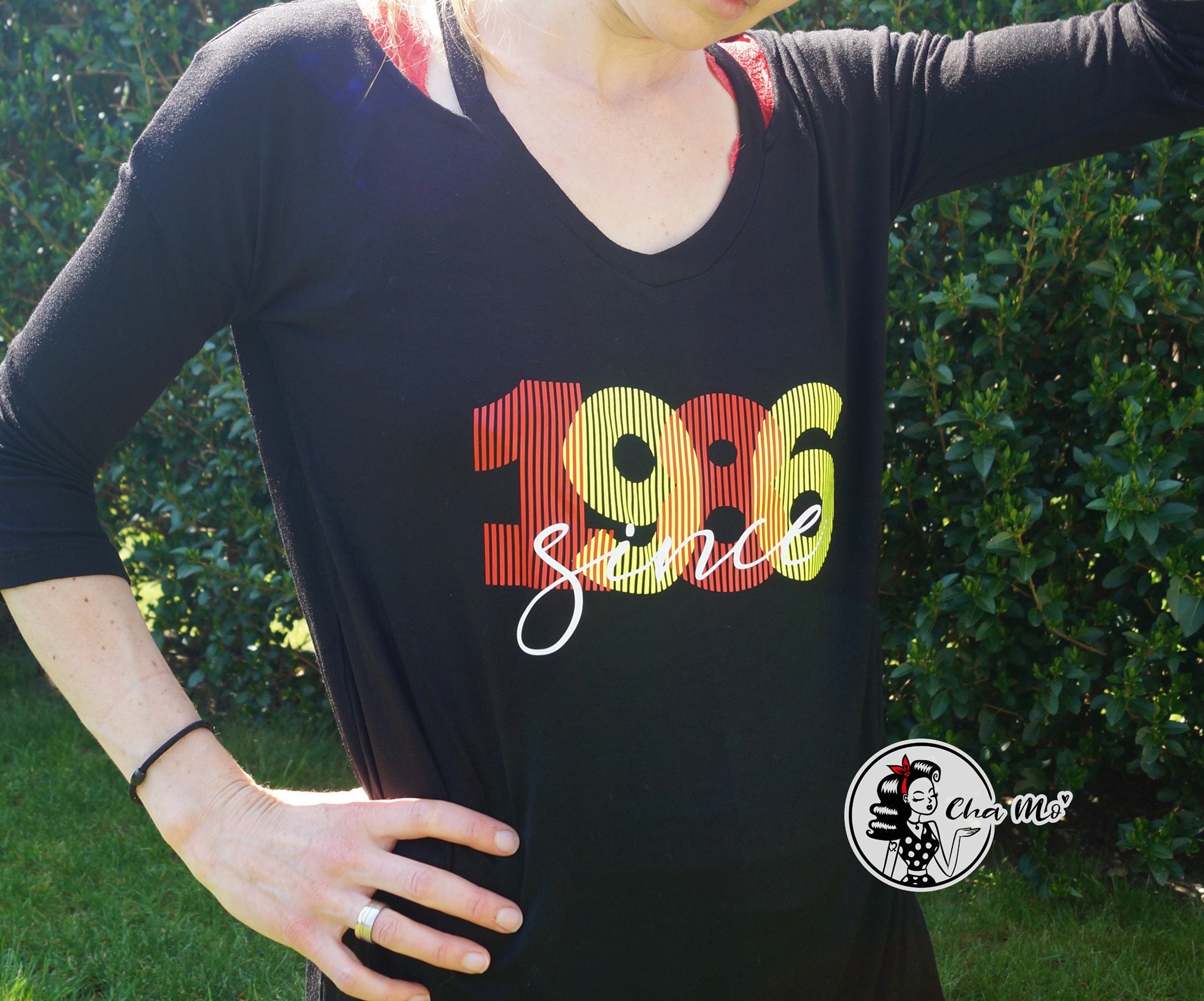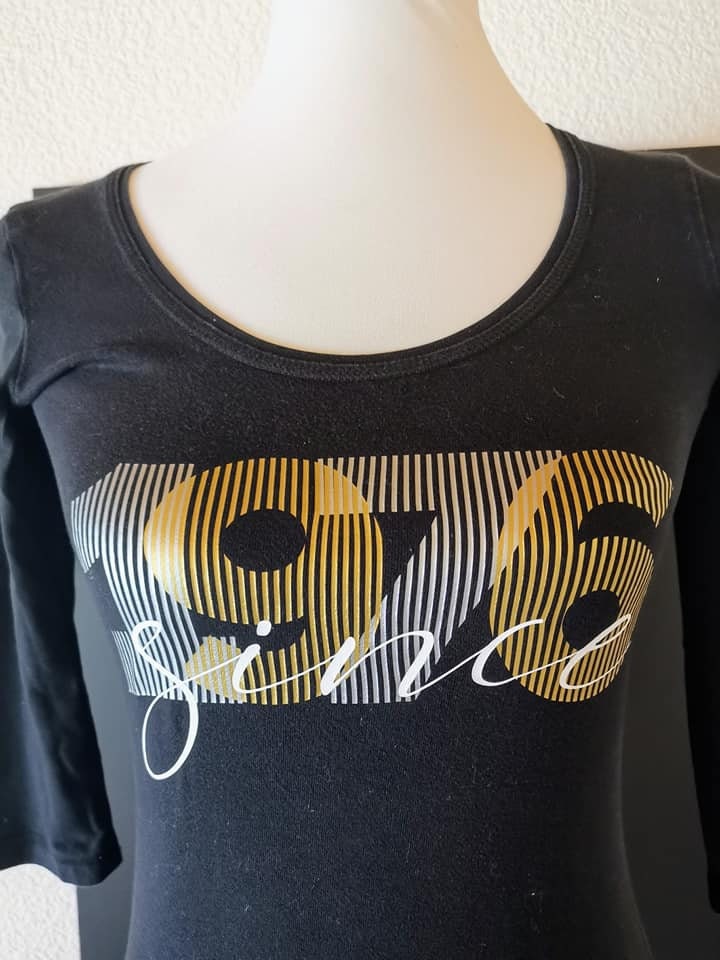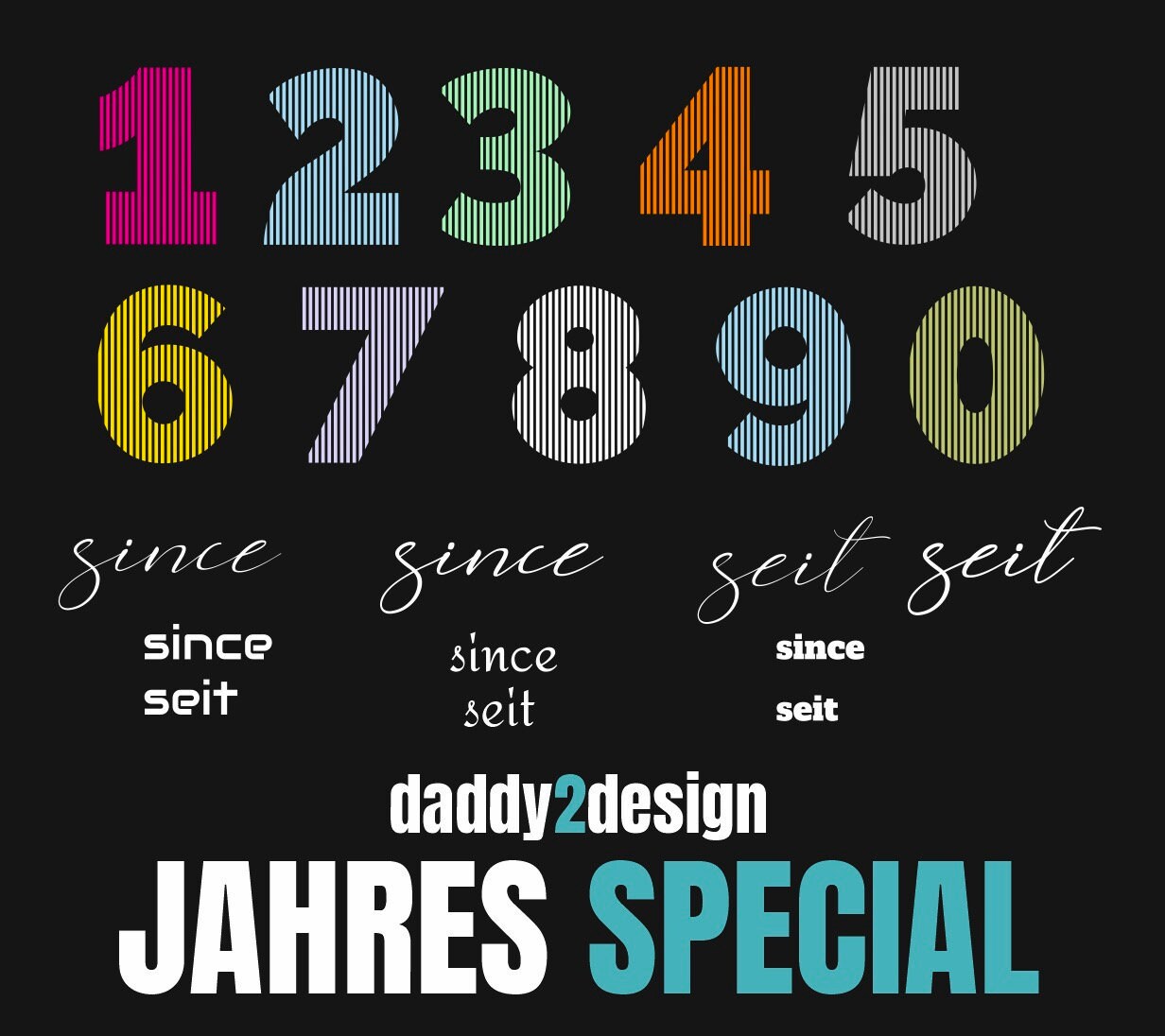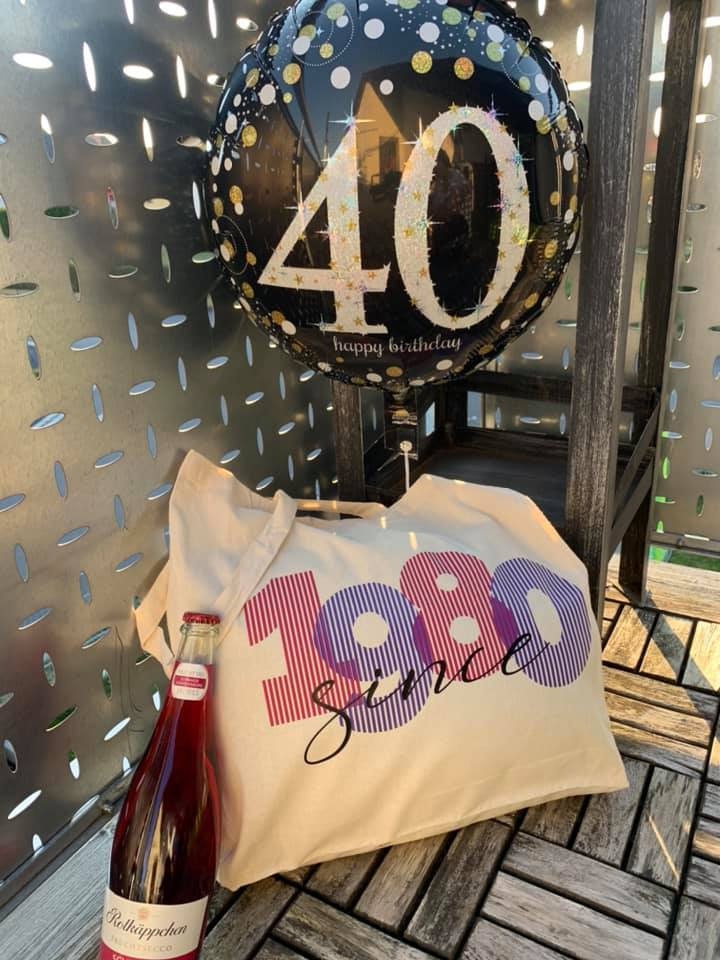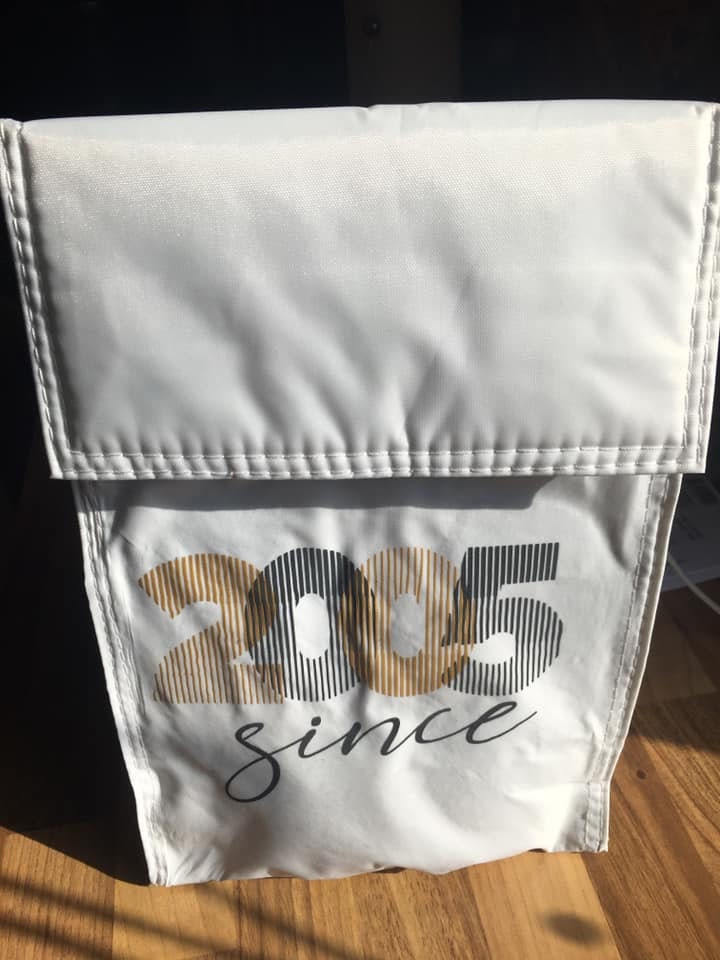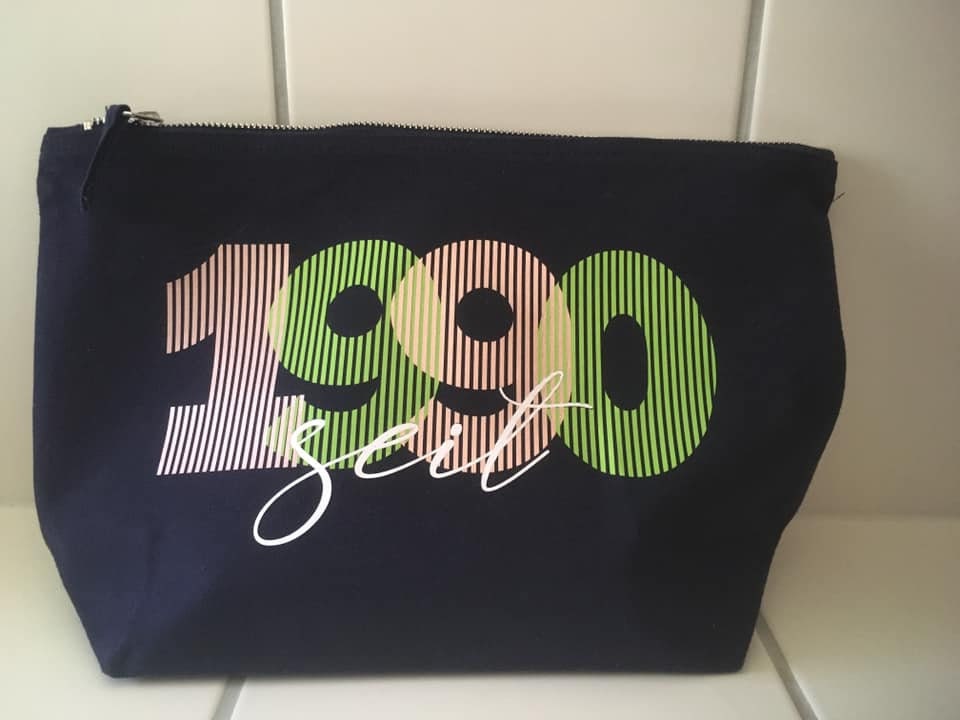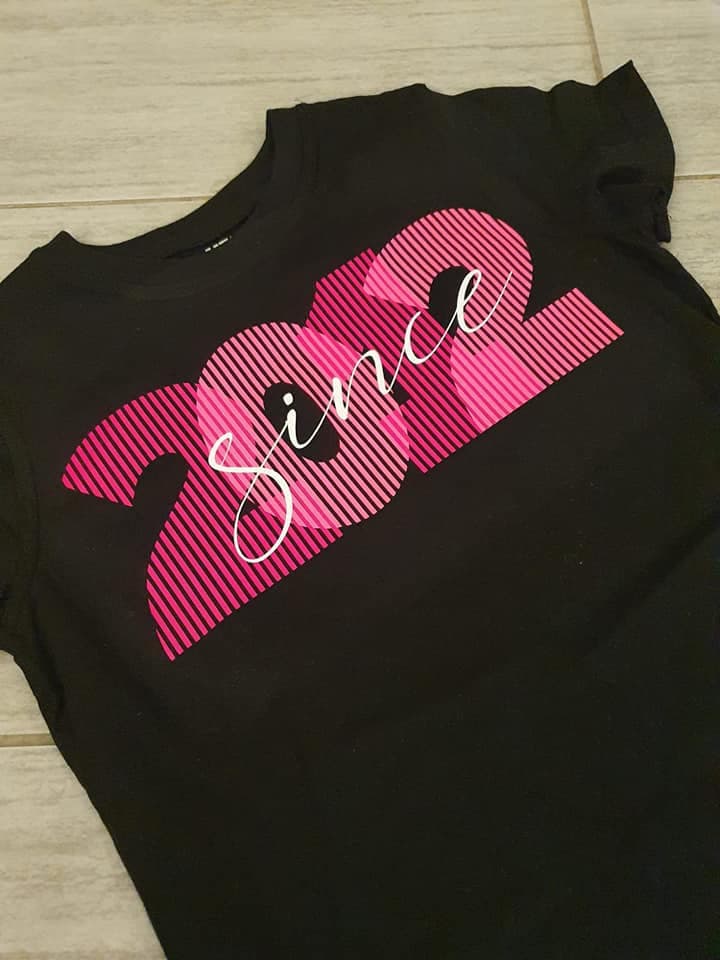
Here you can get the special for years, birthdays, anniversaries and indentation ...
Just all where you need a great year
The overlapping of the letters creates this super color and transparent effect.
The numbers and the matching since / since fonts are included (see picture)
It also gushes the whole ABC with characters and numbers as a set.